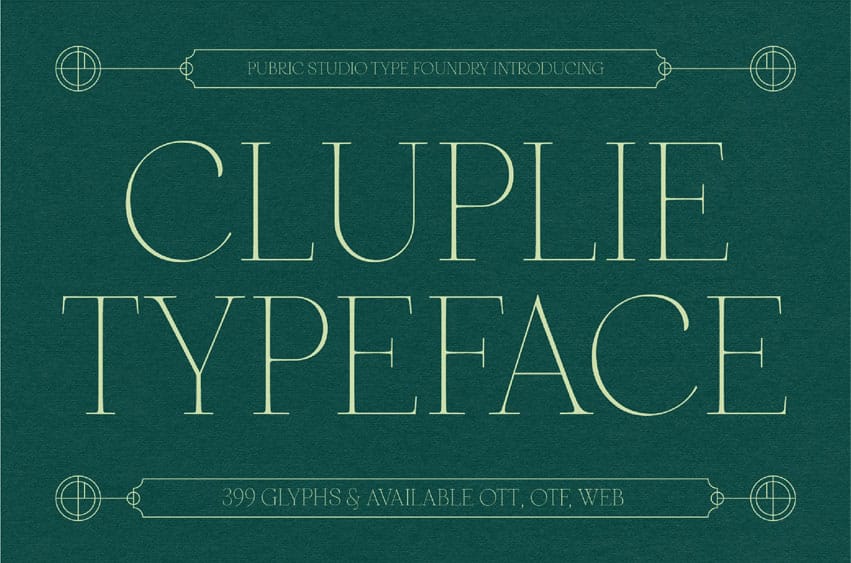
Cluplie Font is an elegant serif font with thin strokes and symmetrical proportions, evoking a timeless and luxurious feel. Ideal for branding, editorial layouts, invitations, and classic, refined design projects.